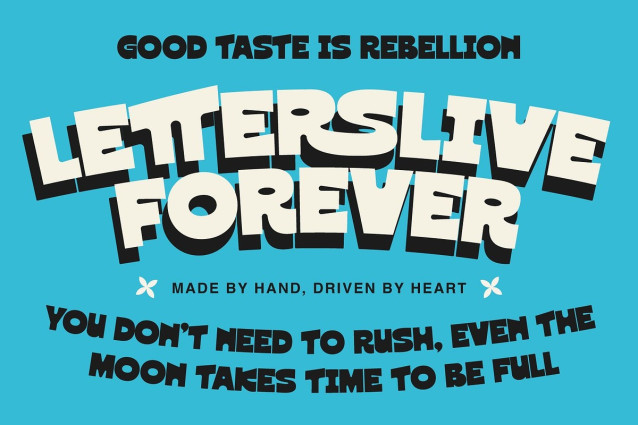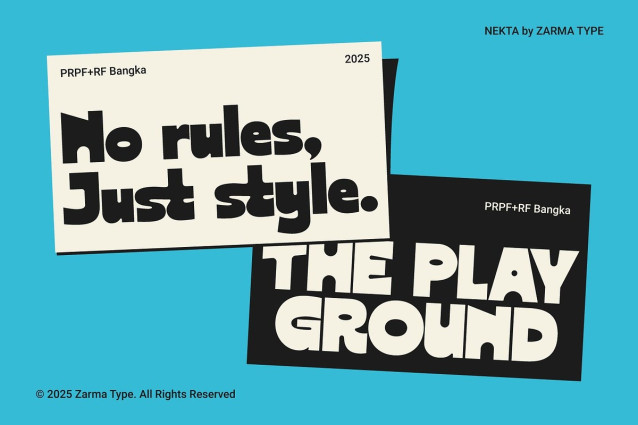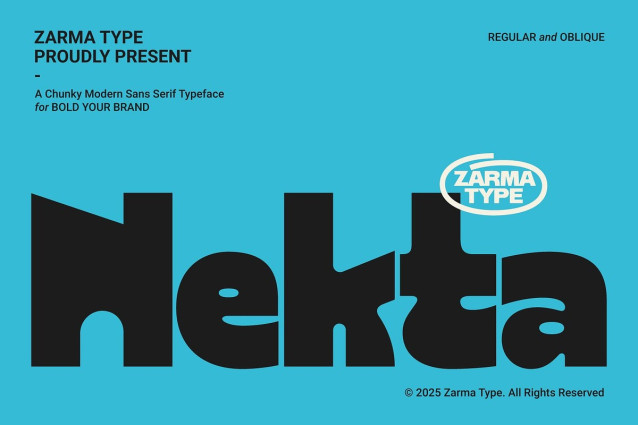
Nekta Font
Nekta Font is a bold modern sans serif font with confident weight, rounded corners, and playful geometry that turns short words into powerful headlines. Generous counters and clean spacing keep it readable on menus, posters, and product cards. When layouts need extra momentum or a quick hint of emphasis, an oblique version is available to add movement without changing families.
Built for practical branding, Nekta holds its structure from small labels to giant billboards. The rhythm stays steady, and the voice remains friendly, even in tight settings. Alternate glyphs help you tune word shapes, while multilingual support keeps global projects consistent. And if you want a directional accent, simply lean the text—the oblique cut is available for that purposeful tilt.